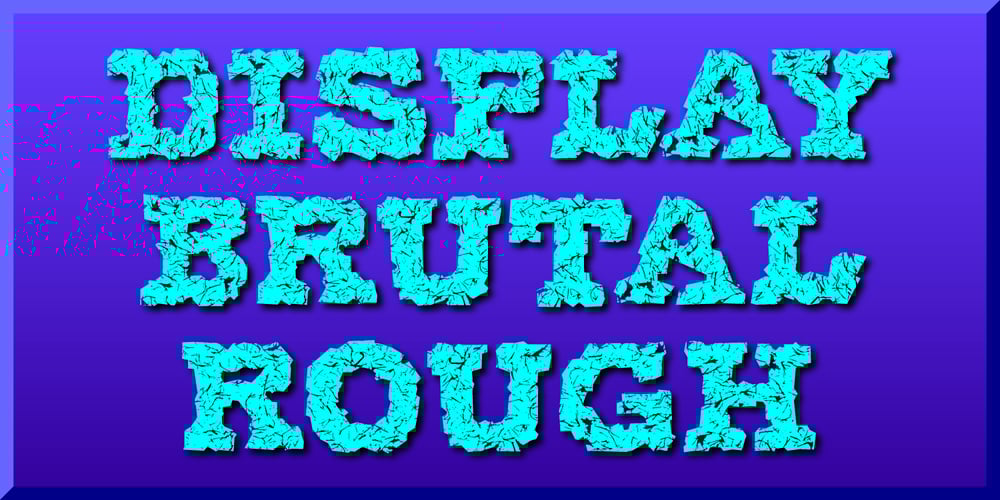
Display Brutal Rough Font Family was designed by Gerald Gallo and published by Gerald Gallo. Display Brutal Rough contains 1 styles and family package options. Display Brutal Rough is a rough version of my font Display Brutal. It is a display font not intended for text use. It was designed specifically for display, headline, logotype, branding, and similar applications. Display Brutal Rough has an uppercase alphabet, numbers, and punctuation.